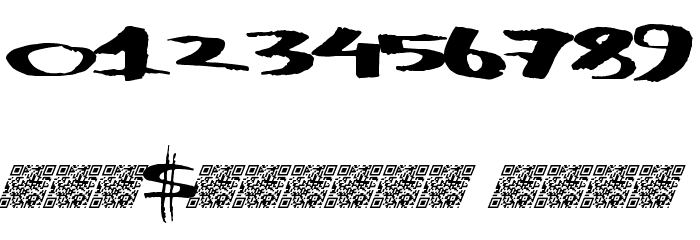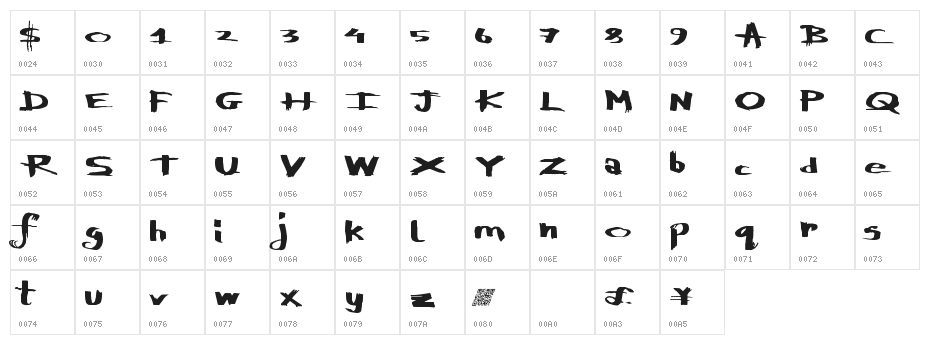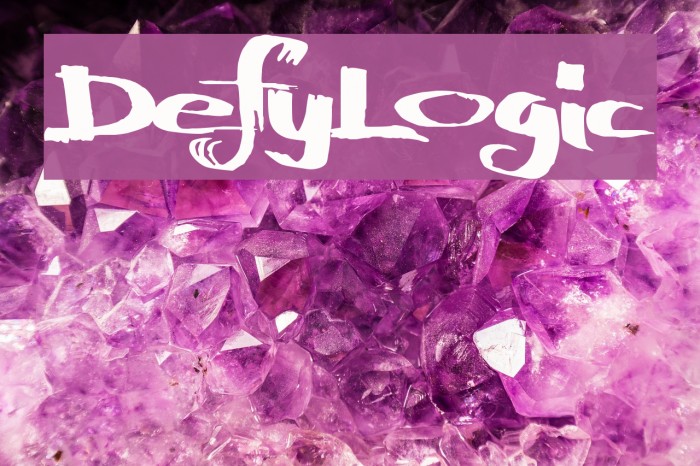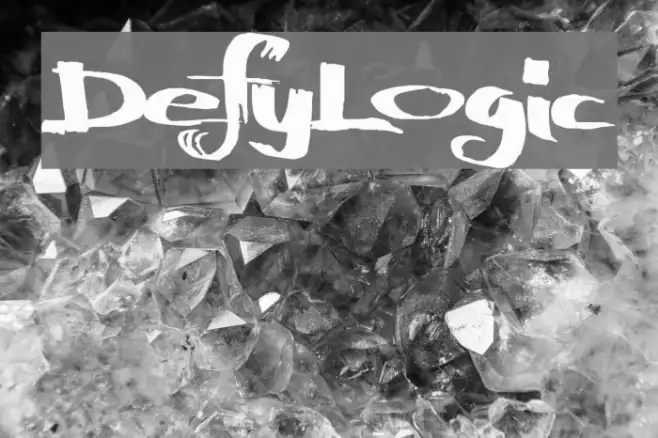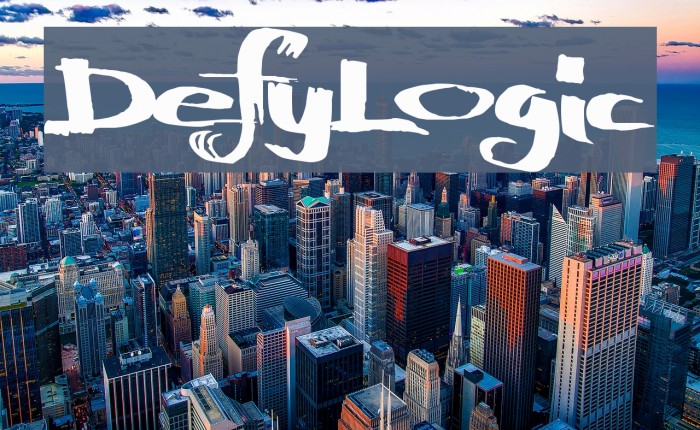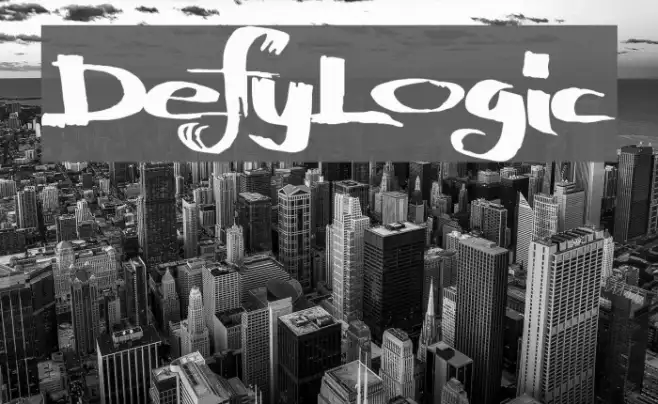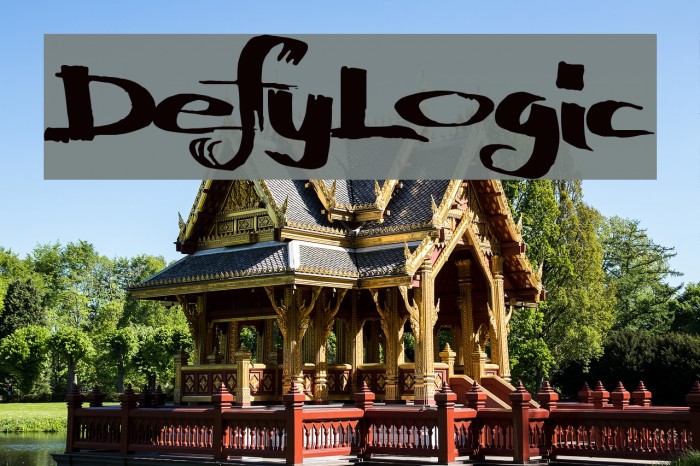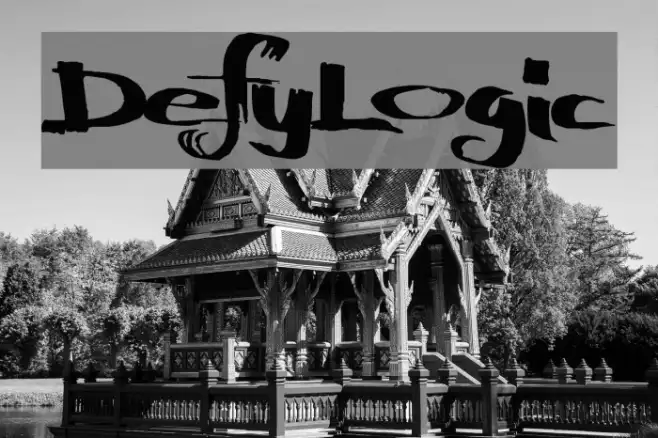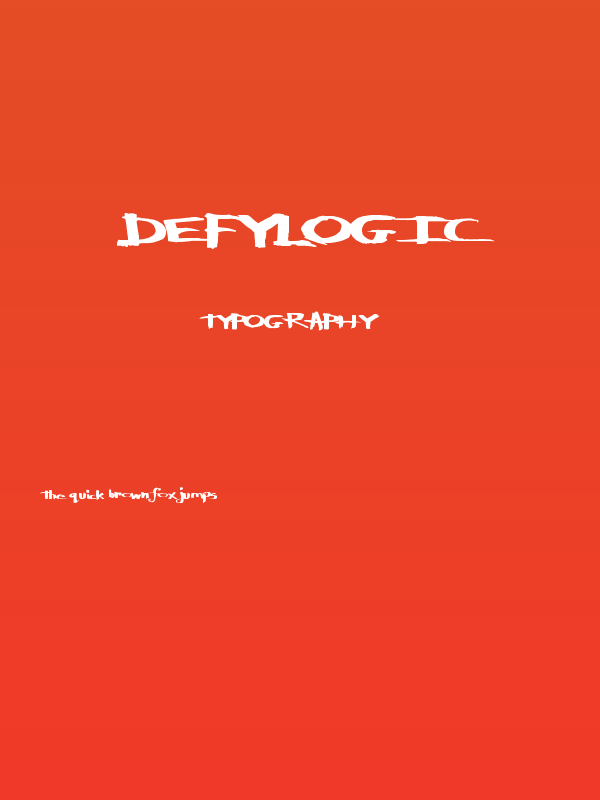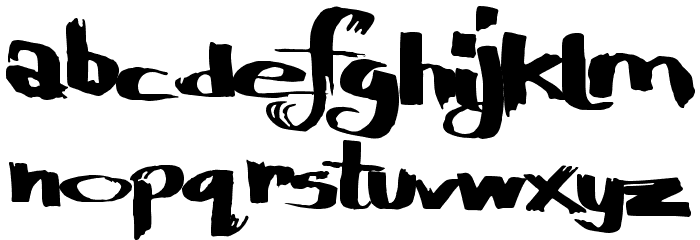
This font exhibits a bold, expressive style with a brush-like texture, giving it a dynamic and energetic appearance. The characters are irregular and slightly chaotic, with varying stroke thicknesses that add to its artistic flair. The uppercase letters are particularly striking, with exaggerated forms and a sense of movement. The lowercase letters maintain this energy, with some featuring unique swashes and curves. Numbers and special characters follow the same bold, artistic style, making them stand out. Overall, this font conveys a sense of creativity and spontaneity, suitable for projects that require a strong visual impact.
| Proposed Projects | Ideal for artistic posters, album covers, graffiti art, and branding that requires a bold statement. |